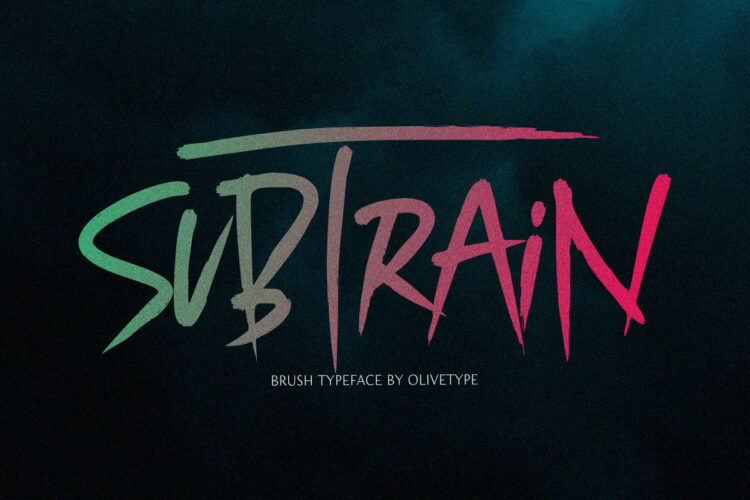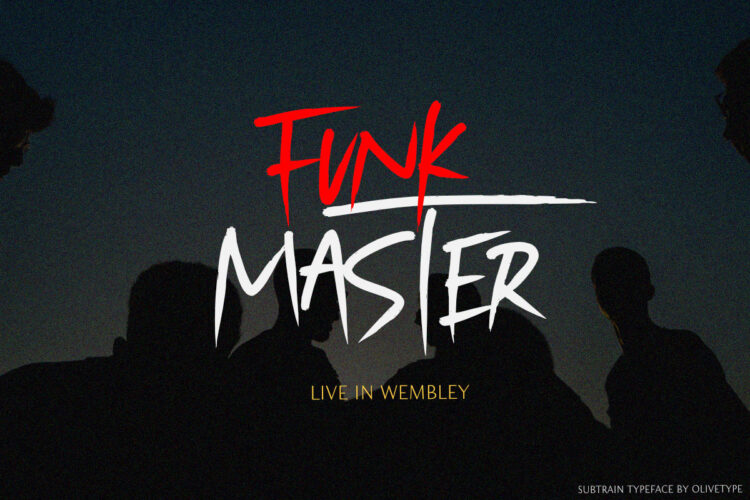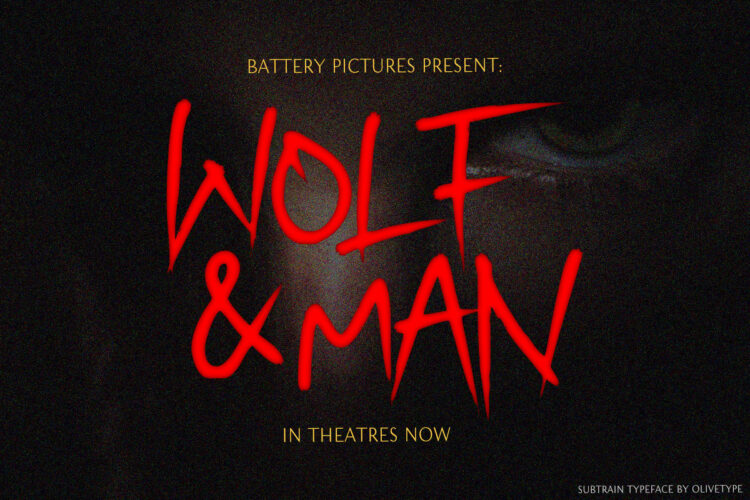
Inspired by the punk and metal scene in the ’80s, this one-of-a-kind typeface is so suitable for apparel, YouTube Thumbnails, Movies, album cover and so much more.
- Basic Latin A-Z, a-z, numbers, symbols, punctuations, swashes